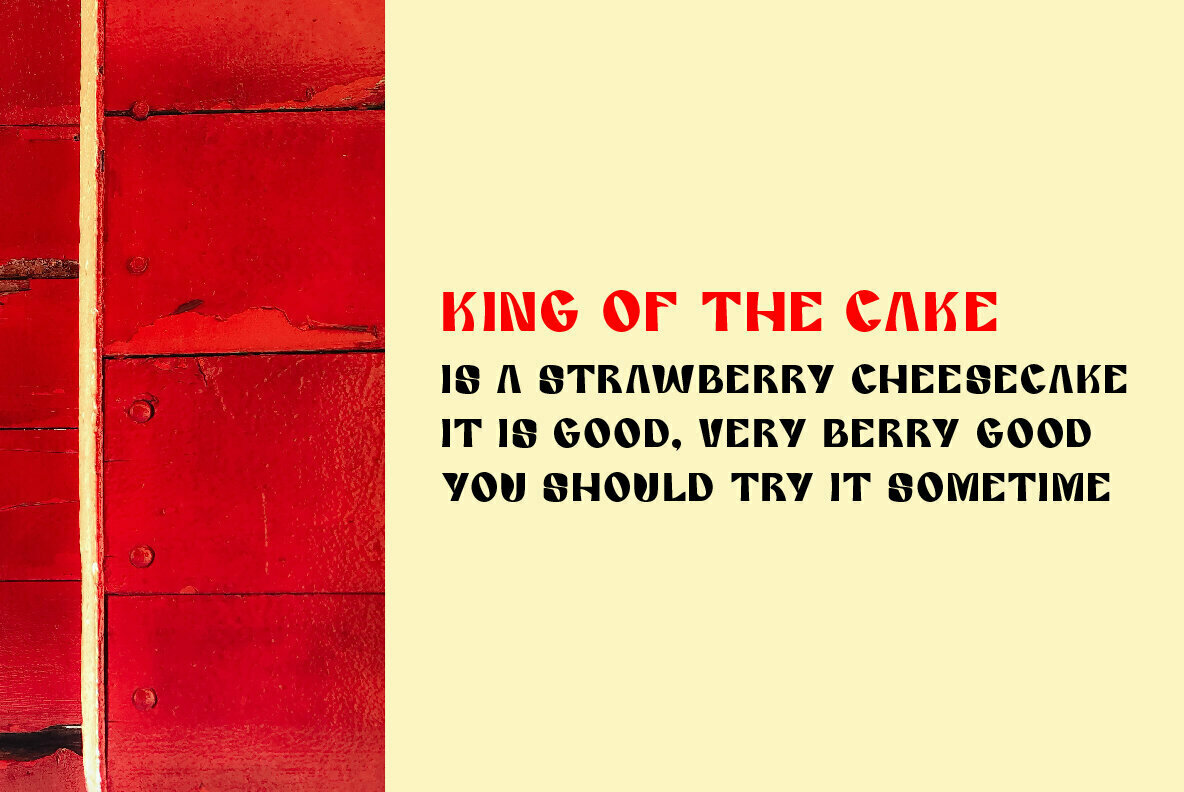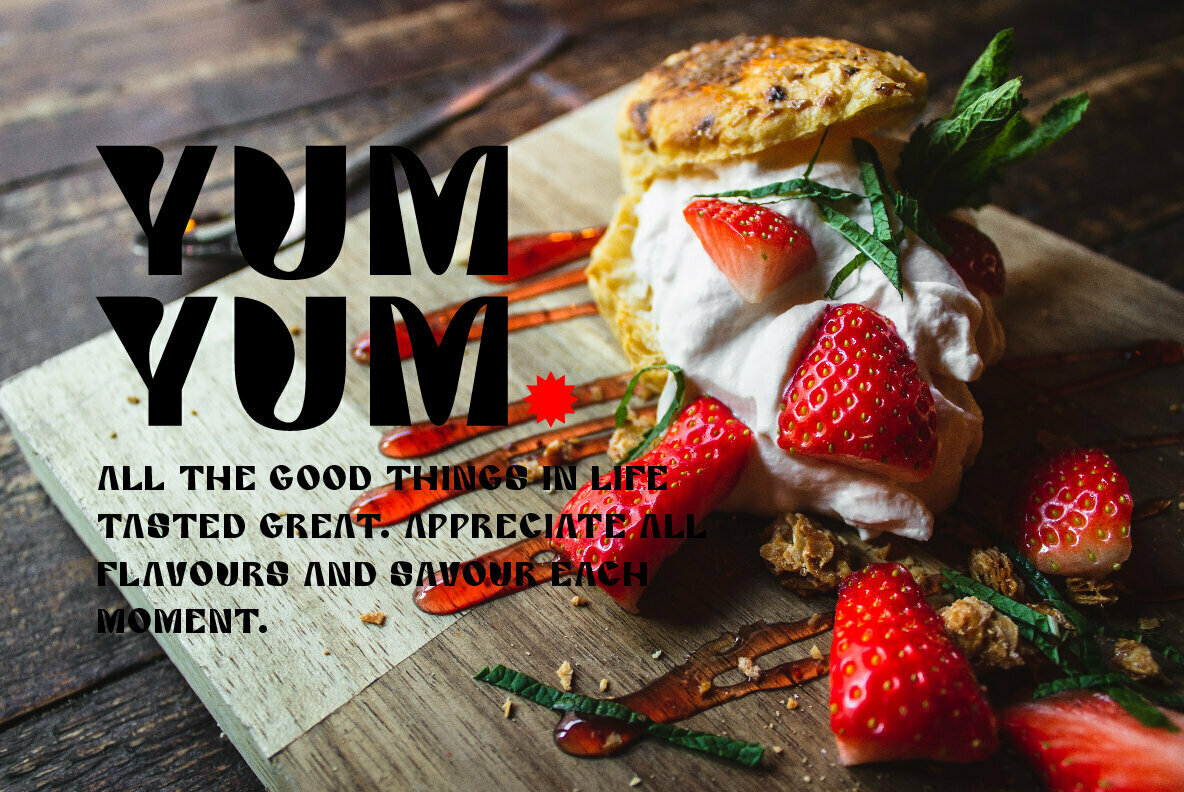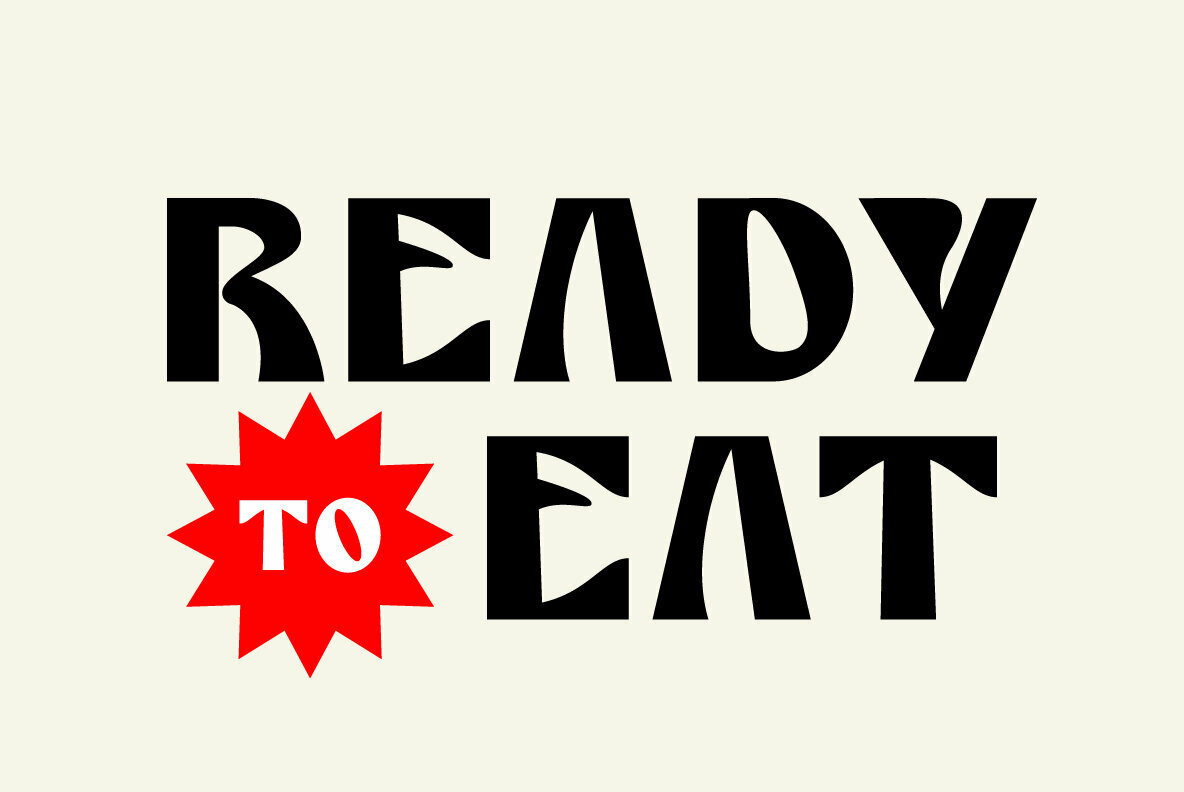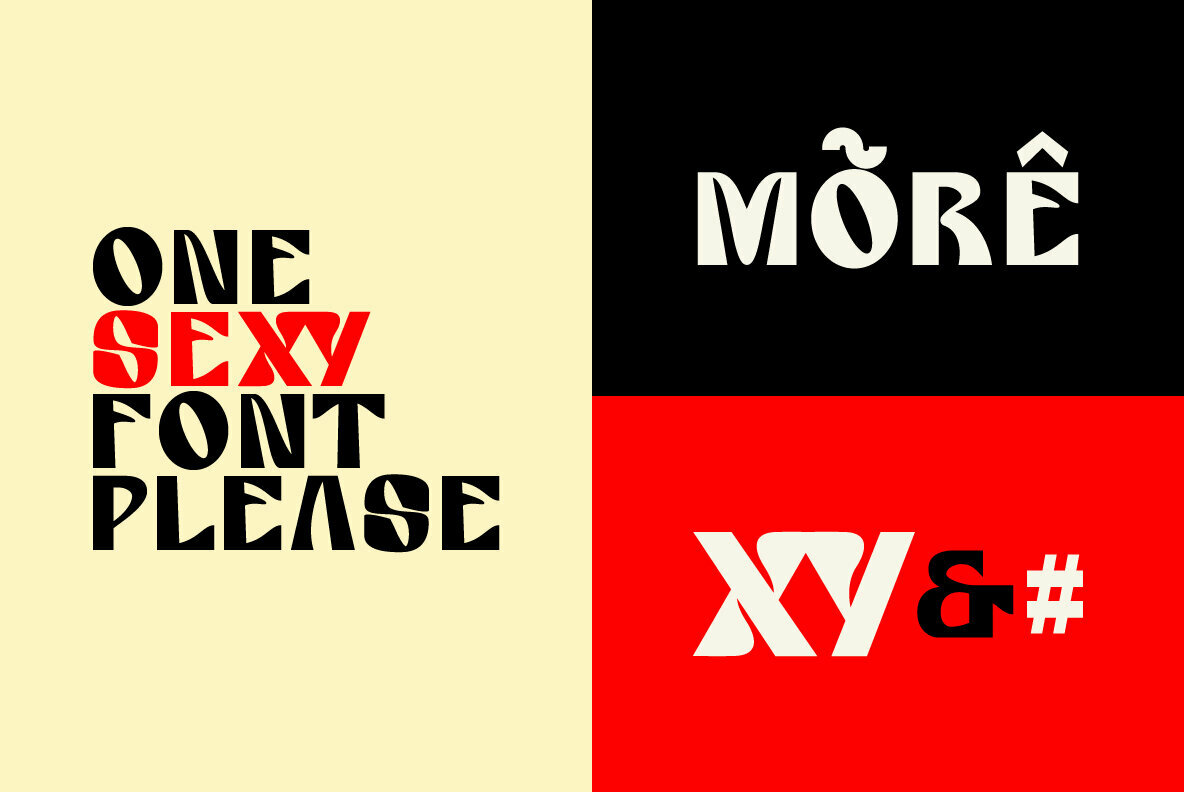
Umami, a playful bold font. It's quirky construction is inspired by the flavour of all things tasty and good. Perfect for headlines, title, display, logo and many more.